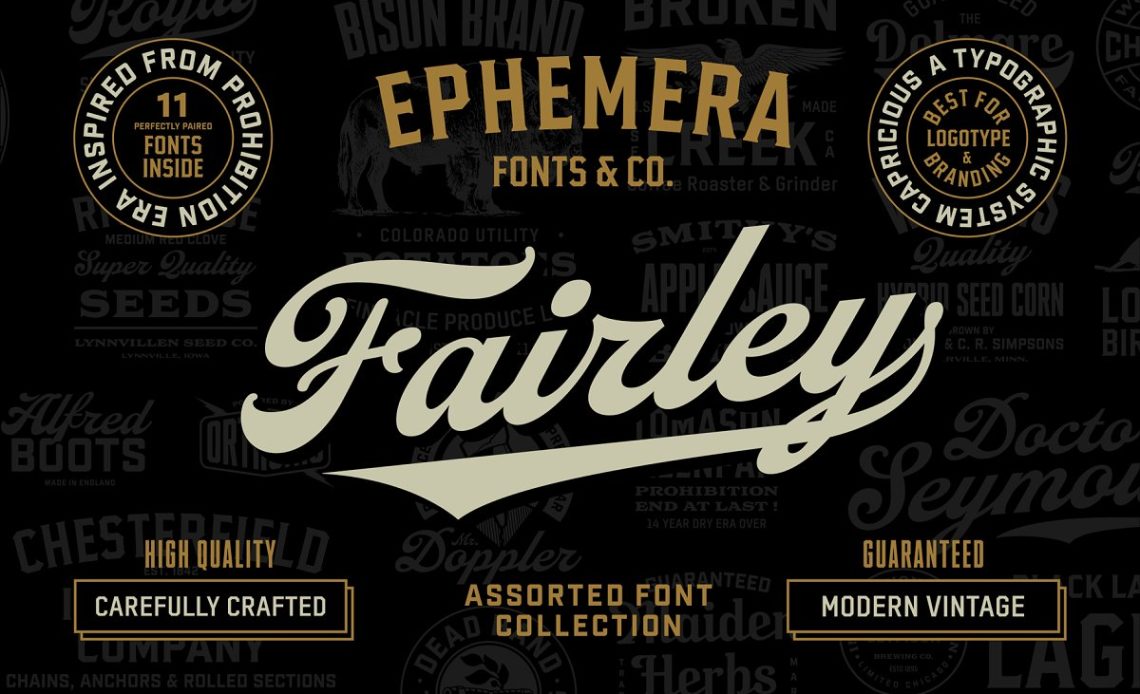
Are you looking for a collection of fonts that are perfect for creating clean and stylish designs for your next project? Look no further than the EFCO Fairley Font Bundle! Created by Ephemera Fonts, this collection features 11 different fonts with a variety of styles in sans, serif, and script.
What makes this font bundle truly unique is its versatility. Each font can be used on its own or combined with others to create dozens of unique font combinations. And if you're looking for something truly eye-catching, the script version of the font includes ending swashes and stylistic alternates from 0 to 9 to add a touch of elegance to your design.
But what really sets the EFCO Fairley Font Collection apart is its inspiration. This collection was designed with today's graphic design trends in mind, ensuring that your designs will always be fresh and on-trend. Whether you're creating posters, logos, t-shirts, magazine prints, or any other kind of design, this font collection is the perfect choice.